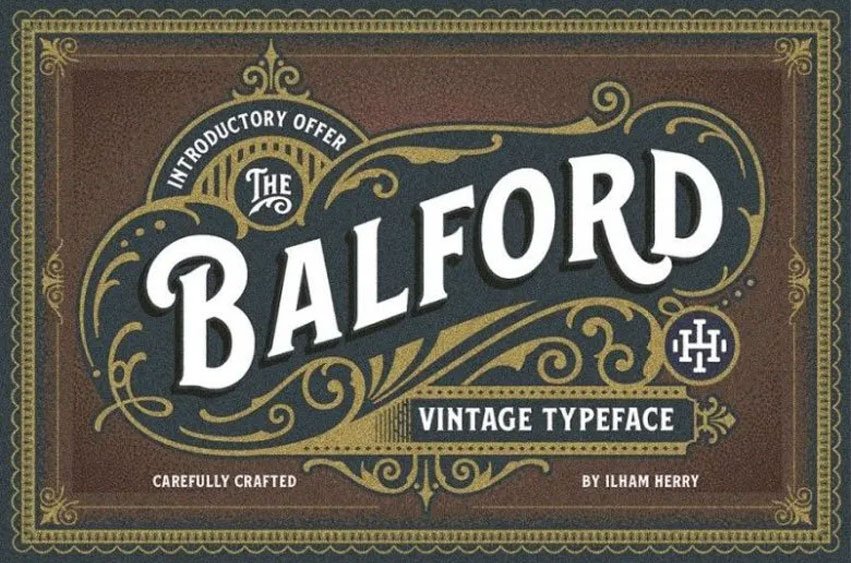
Balford Font
Balford Font family and ornament named Balford was introduced. derived from the vintage labels and packages.
This set of fonts with the shadow typeface and vintage scrolls, panels, and ornaments can be combined in different ways to create label designs, headlines, logotypes, signs, posters.